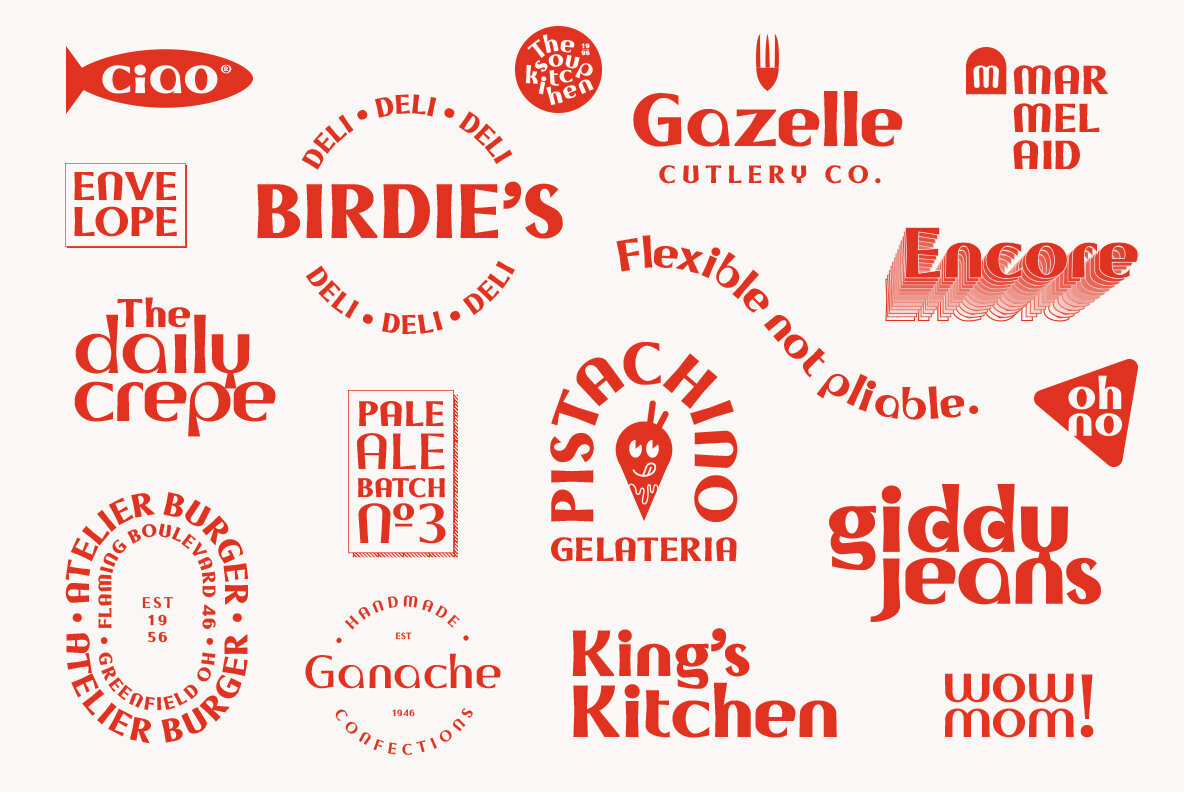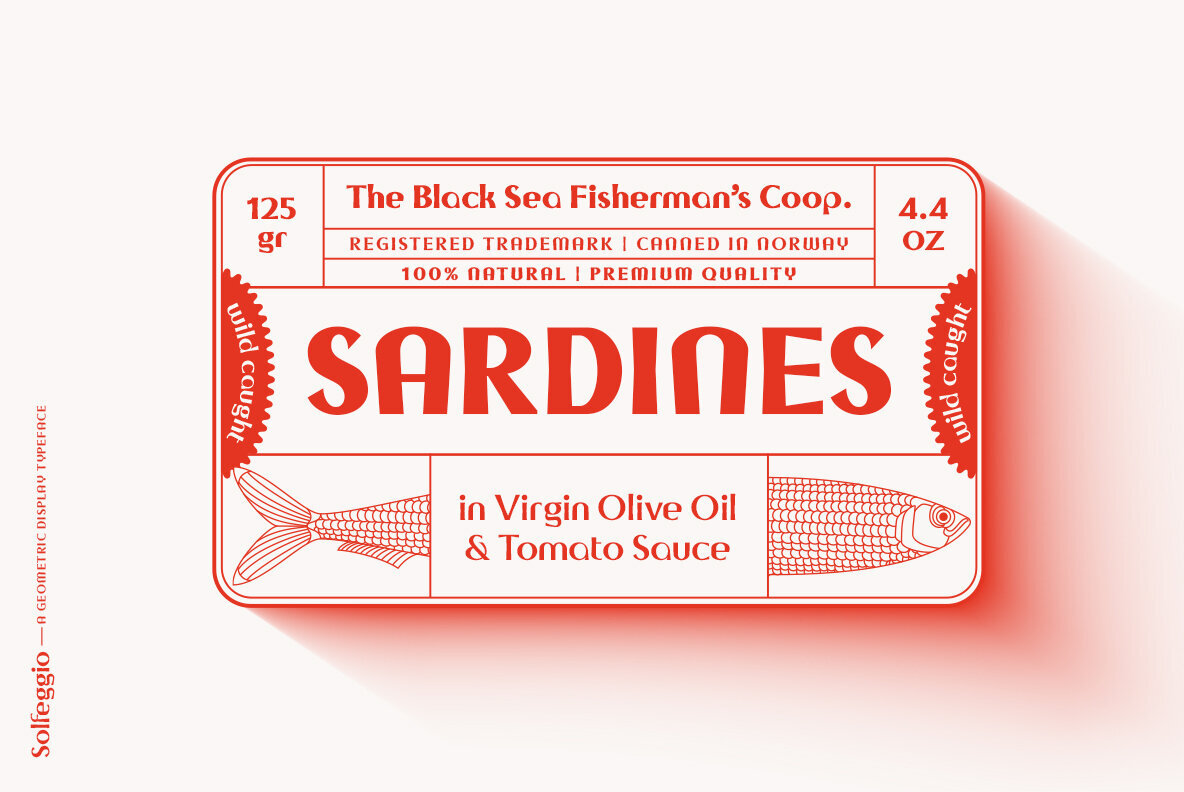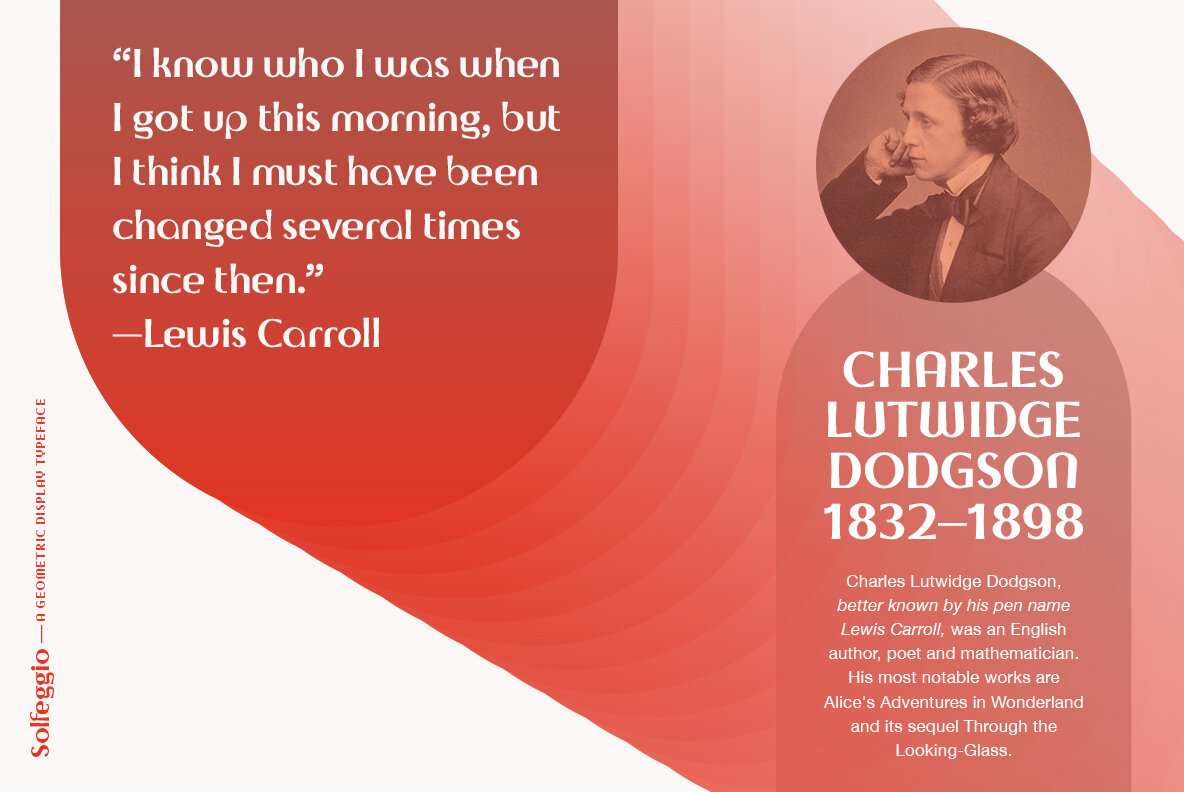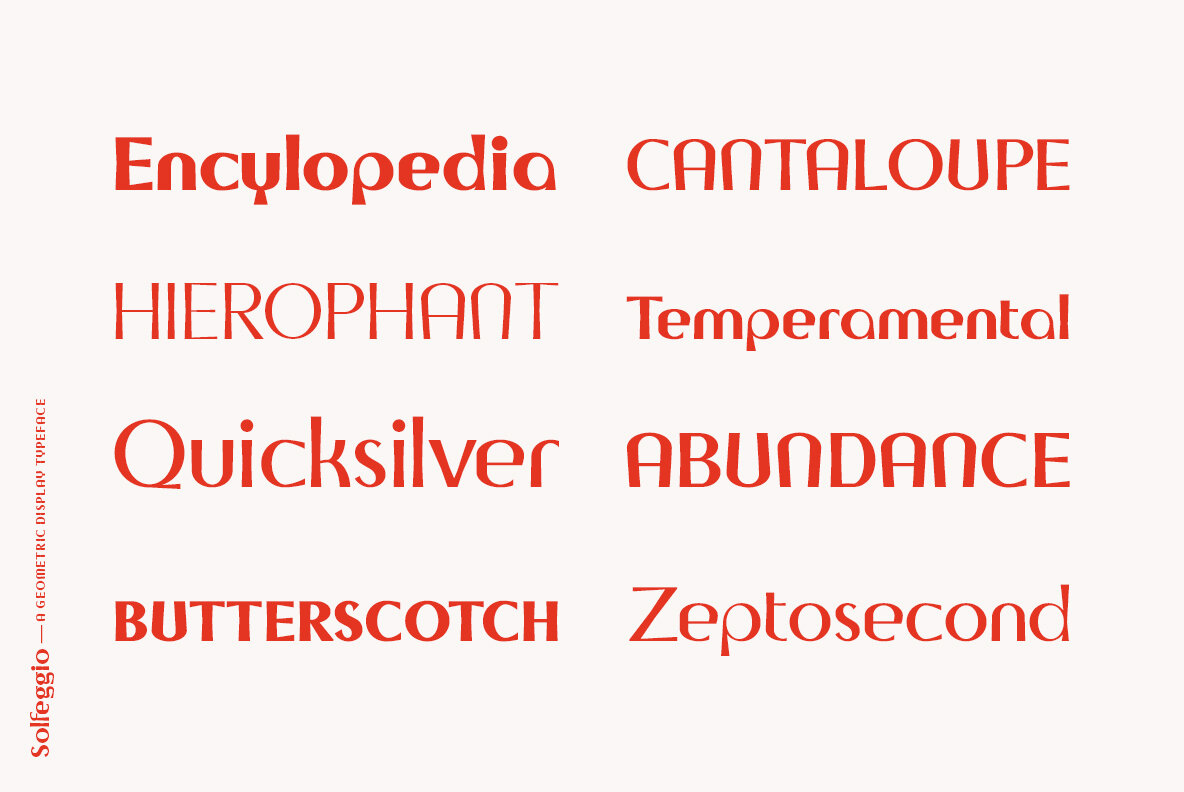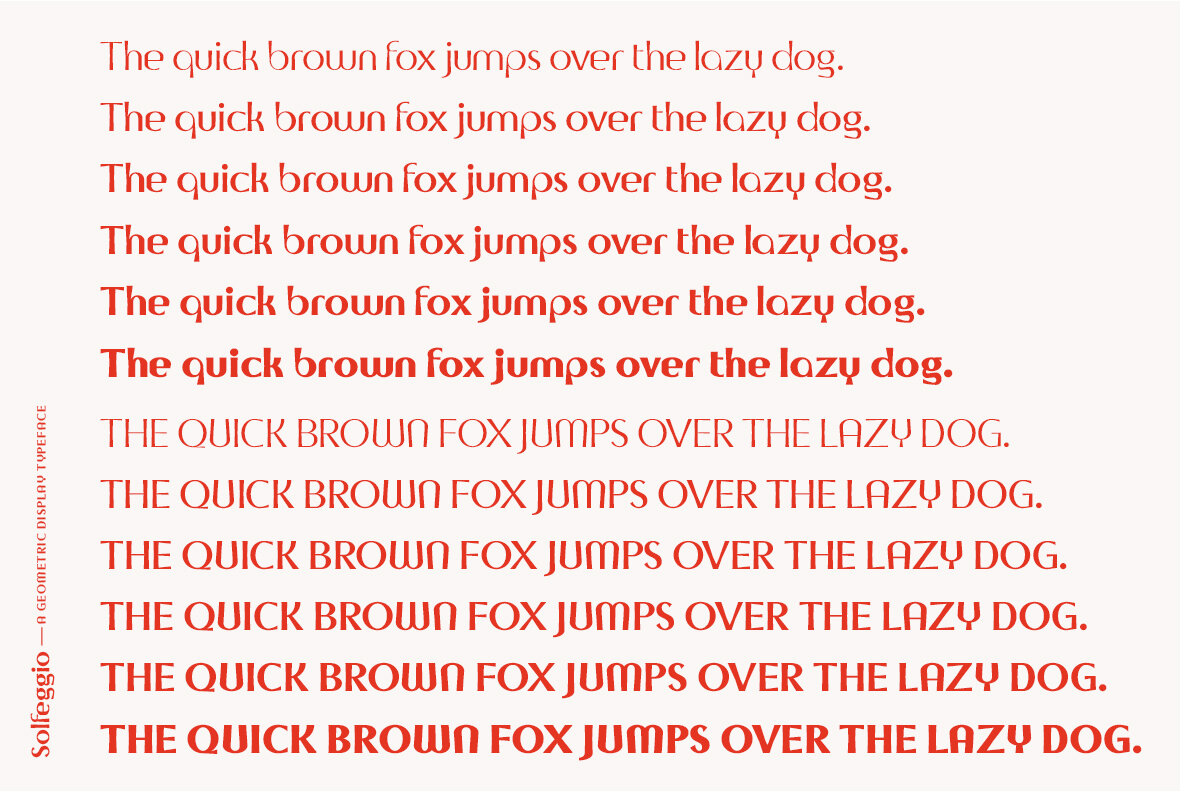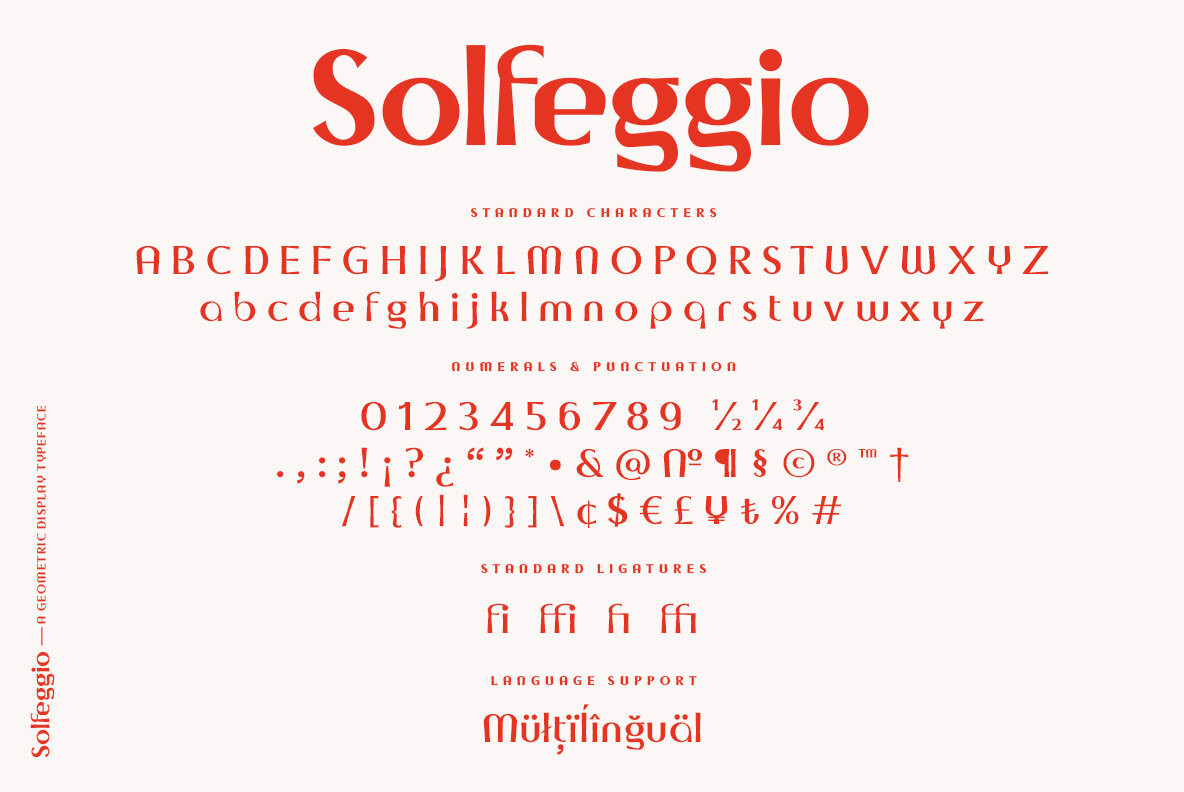
Solfeggio Font
Solfeggio is a geometric display typeface with high contrast and odd but striking forms. Its calculated quirks make it an excellent, attention grabbing, eccentric typeface ideal for logos & branding as well as posters, headlines, packaging, websites, etc.